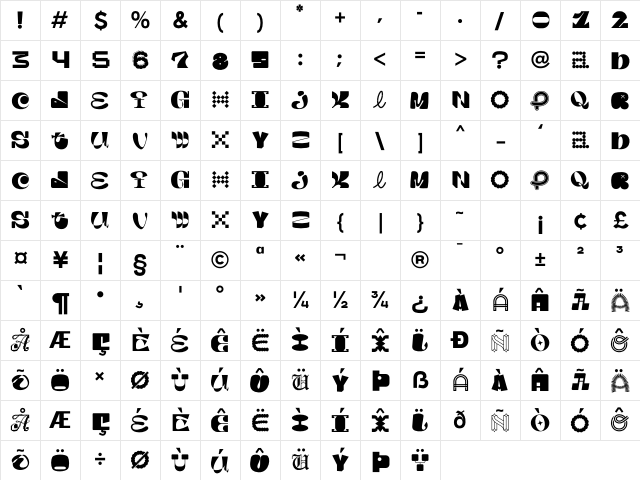
Complete MGN Kinetic Display 2 glyph index. Displaying only characters natively supported by MGN Kinetic Display 2 font.
MGN Kinetic is built around its visual character rather than neutral utility - its distinctive forms are designed to make an impression at display sizes.
Font Pairing: Pair with a clean neutral sans-serif for body copy to let MGN Kinetic's character lead without overwhelming the composition.
Pro Tip: Use MGN Kinetic exclusively at display sizes - it was designed to be seen, not read at length. Let a neutral companion handle body copy.